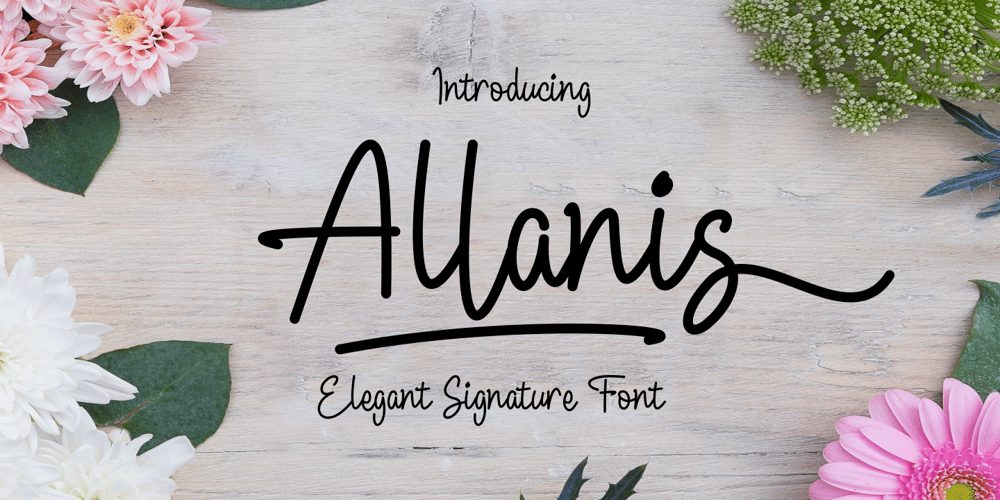
Allanis Font Family was designed by Nur Faidin and published by Nurf Designs. Allanis contains 1 styles and family package options. Allanis is a classic and original handwritten font with a light feel. It will add a beautiful spark to any design project!